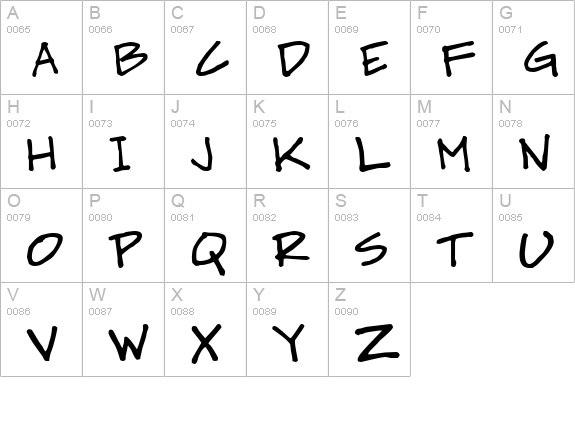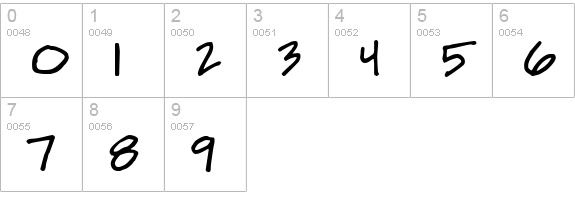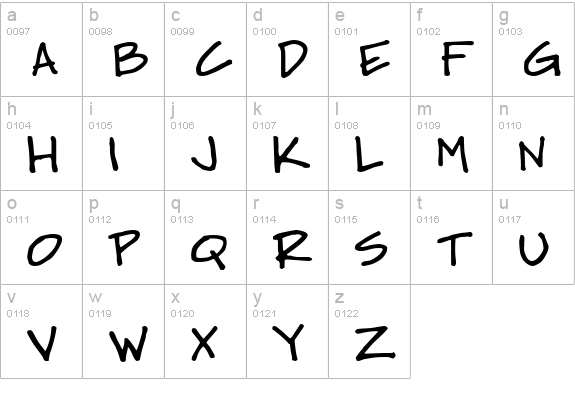
Introducing Mr. Walters font, a stylish and elegant typeface that exudes sophistication and charm. With its classic yet modern design, Mr. Walters font is perfect for a wide range of projects, from branding to packaging to invitations. This versatile font features clean lines and a timeless appeal that will make your text stand out. Whether you're creating a logo for your business or designing a wedding invitation, Mr. Walters font is sure to make a lasting impression. Best of all, Mr. Walters font is completely free to download at FontsMarket.com. So go ahead and add this beautiful typeface to your collection today and elevate your designs to the next level.